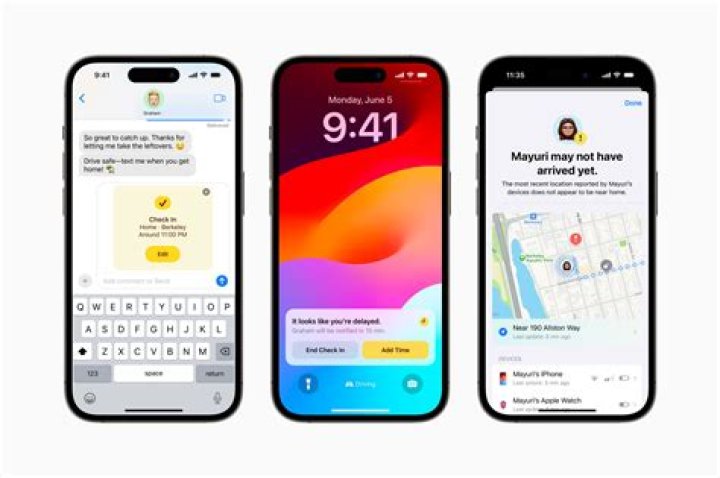
What font does iOS 6 use?
The default iOS font is SF, or San Francisco. You can download SF Pro for free.
Which fonts are available in iOS?
Apple provides two type families you can use in your iOS apps. San Francisco (SF). San Francisco is a sans serif type family that includes SF Pro, SF Pro Rounded, SF Mono, SF Compact, and SF Compact Rounded. SF Pro is the system font in iOS, macOS, and tvOS; SF Compact is the system font in watchOS.
What typeface does Apple use?
San Francisco
Apple’s bespoke typeface, San Francisco, will replace Helvetica Neue as the default on both OS X El Capitan and iOS 9. Apple’s in-house San Francisco typeface will replace Helvetica Neue as the default font on both OS X El Capitan and iOS 9 this fall. The world’s most beloved typeface has been dumped.
What font is close to Helvetica?
Helvetica is a widely used sans serif typeface that has been popular in publishing since the 1960s. Commonly used alternatives to Helvetica include Arial and Swiss.